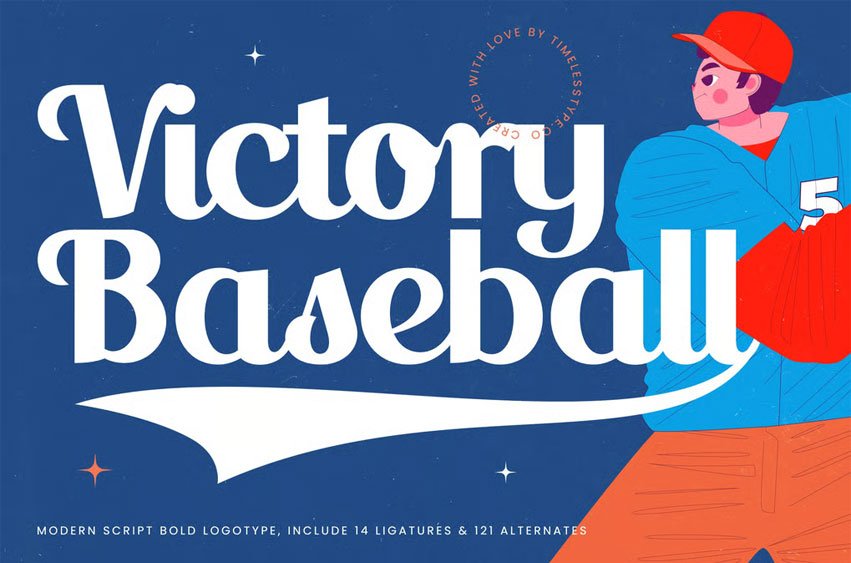
Victory Baseball Font is a modern script bold logotype font inspired by classic sports lettering and dynamic baseball aesthetics. With 14 ligatures and 121 alternates, this typeface brings energetic curves, confident strokes, and smooth swashes — perfect for team logos, sports merchandise, posters, and vintage-style branding that needs a powerful competitive spirit.
Crafted to evoke movement and athletic pride, Victory Baseball blends traditional American sports typography with a modern twist. Its sweeping tail swashes and bold letterforms make every word feel impactful, iconic, and full of winning attitude.
Victory Baseball Font Preview